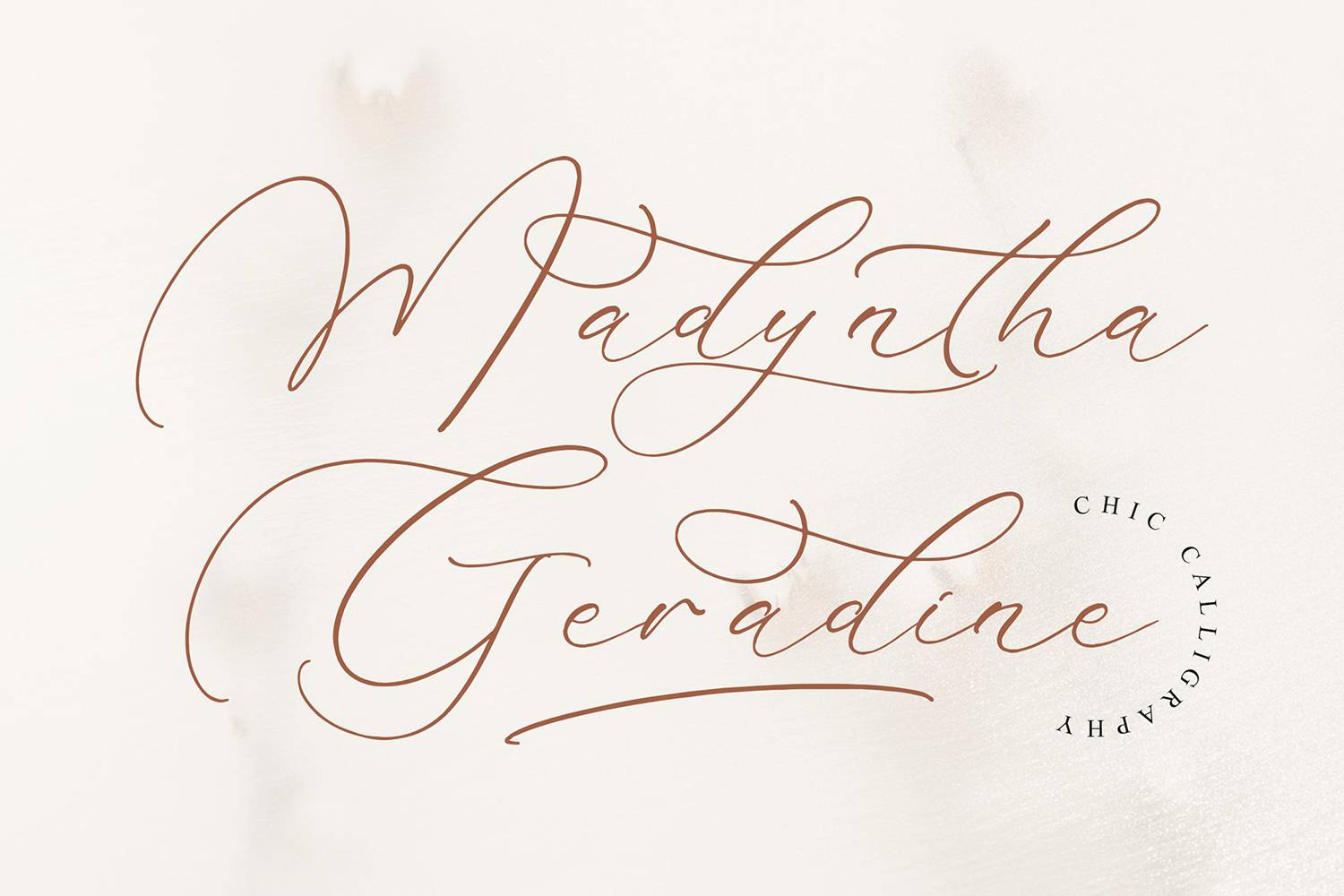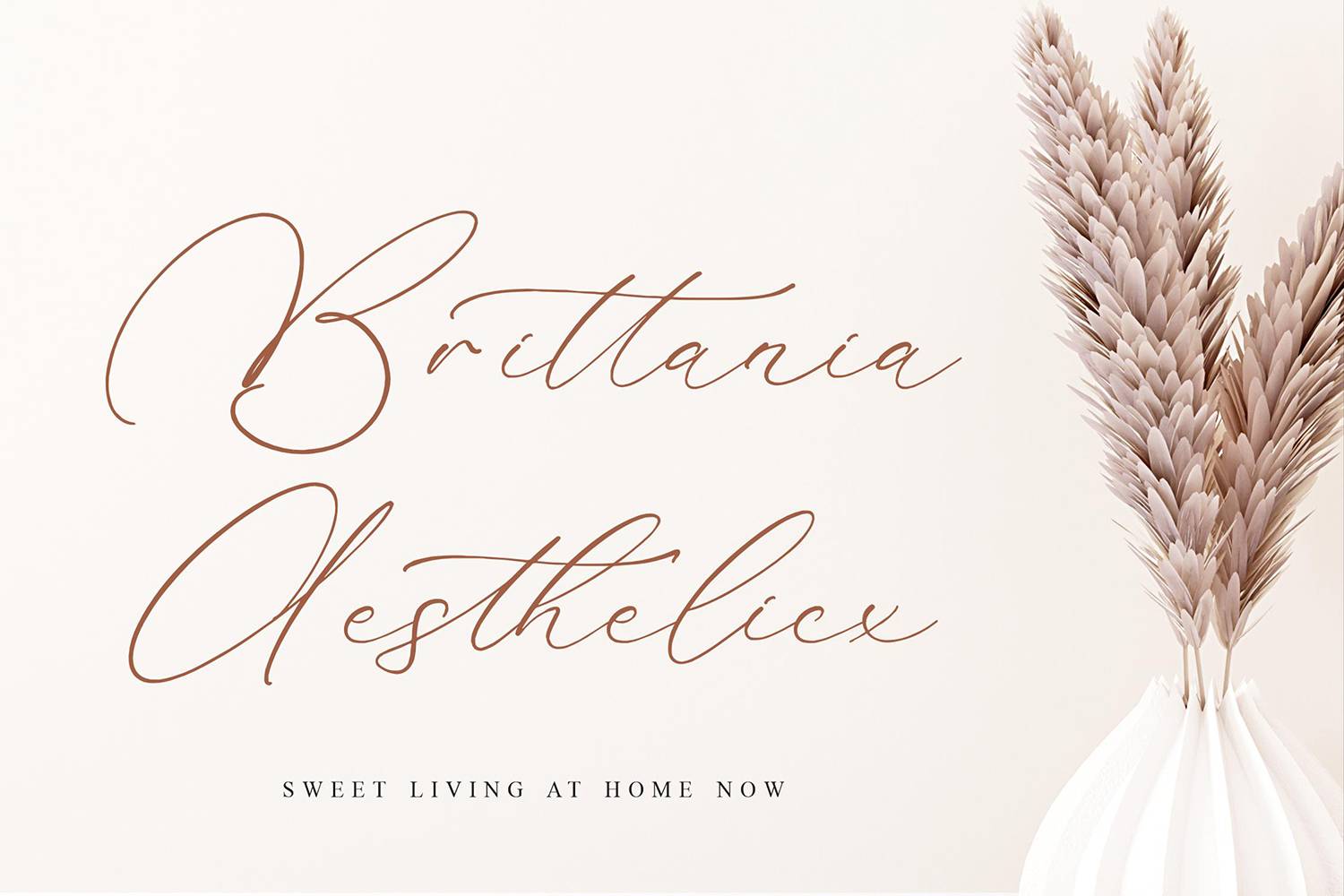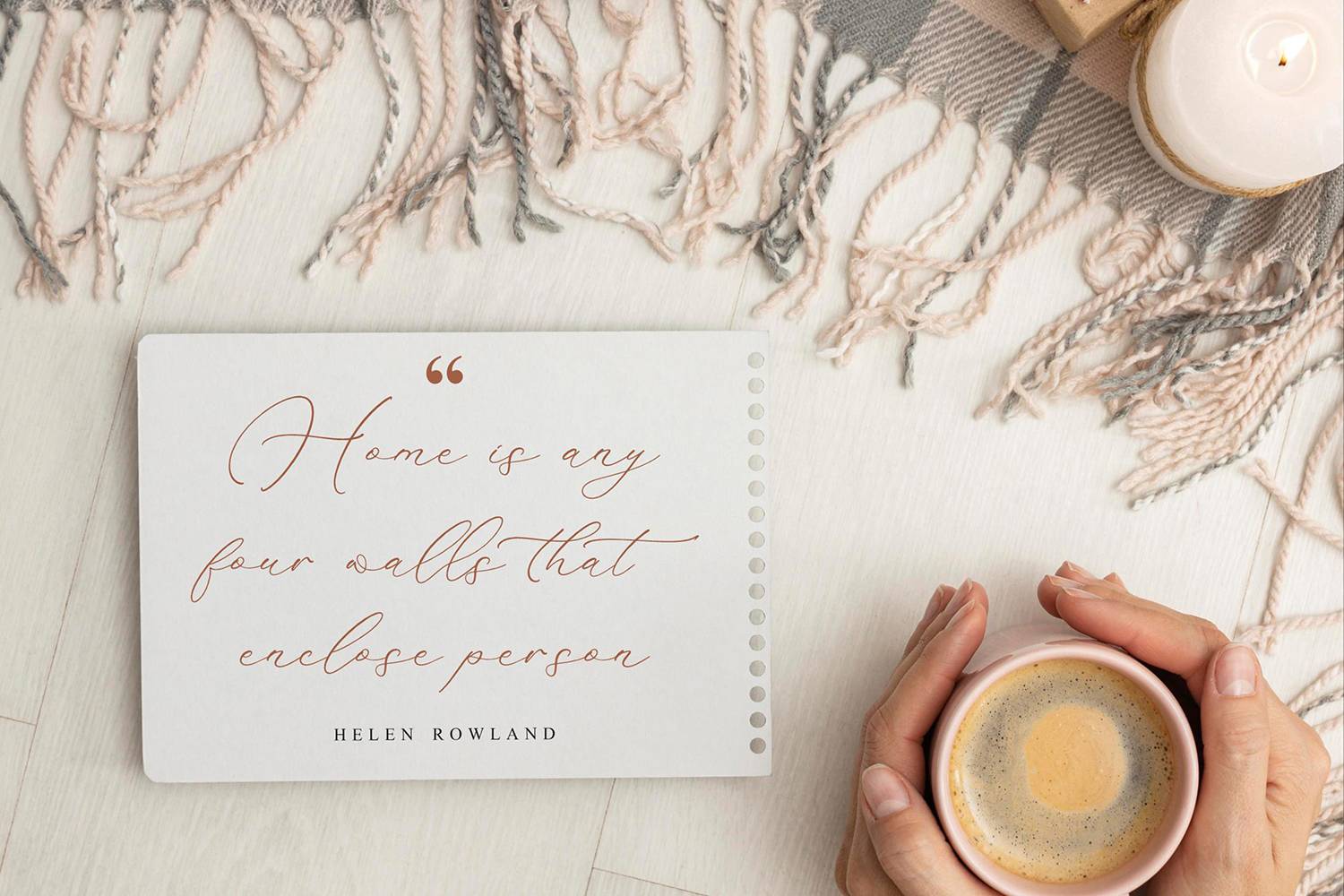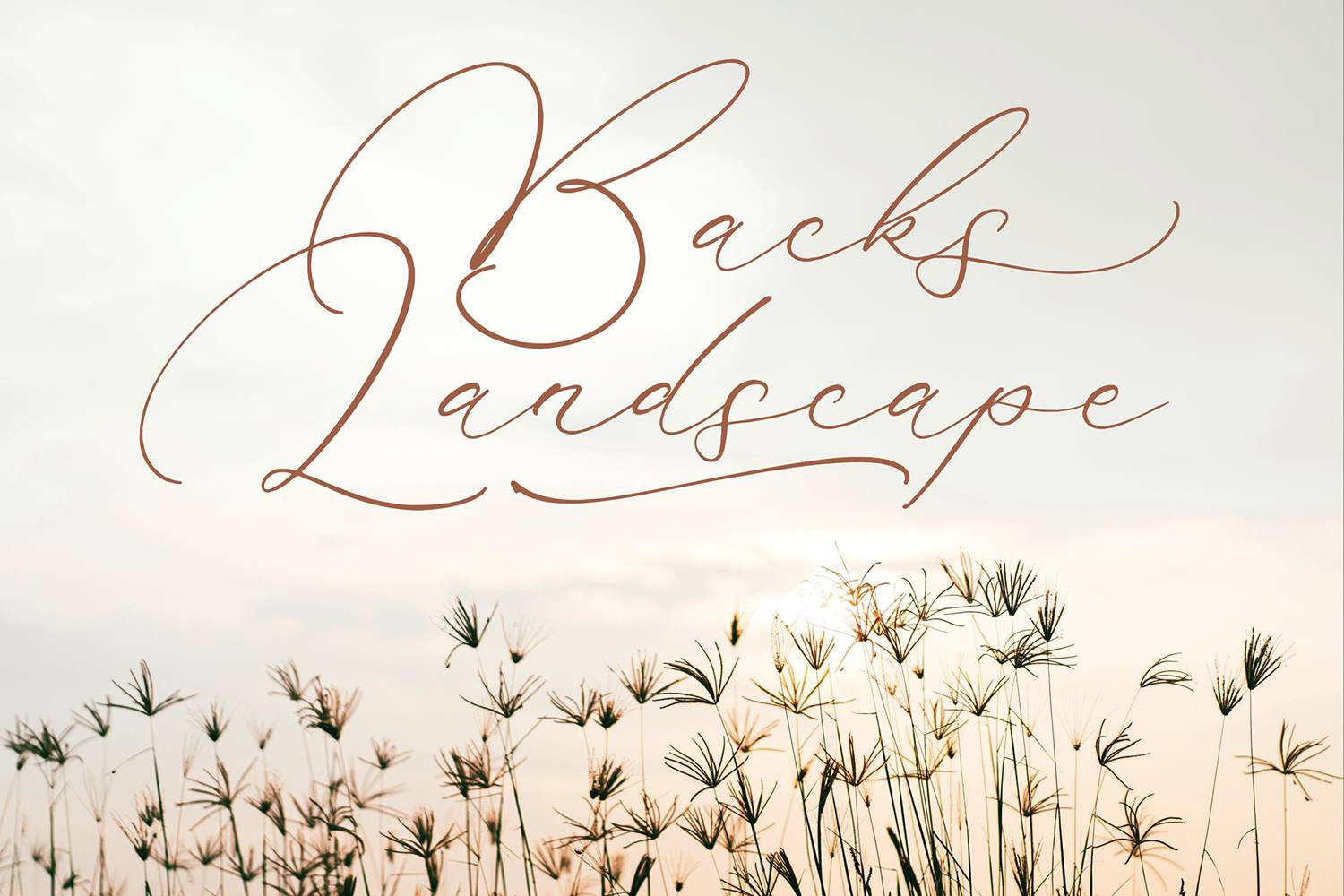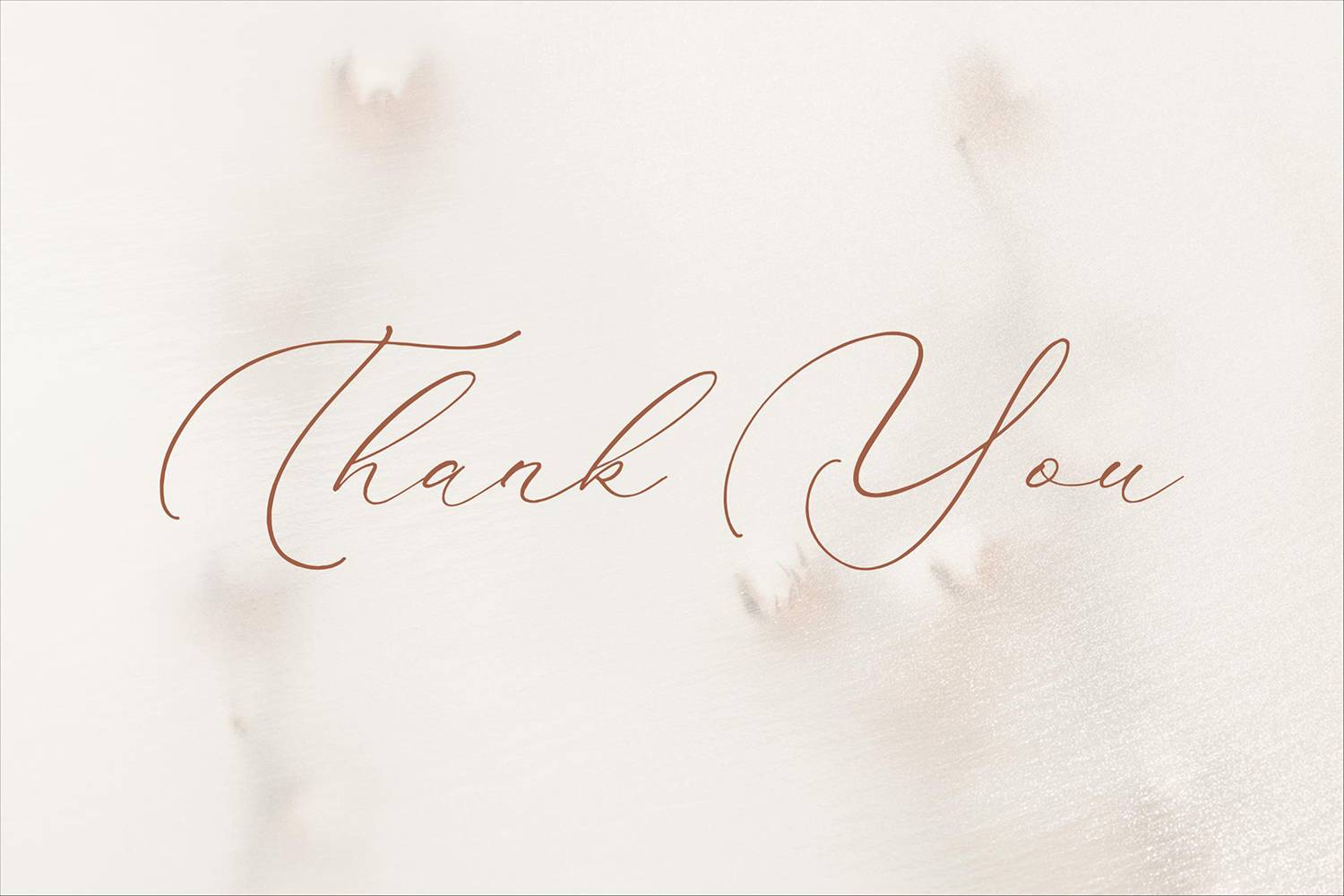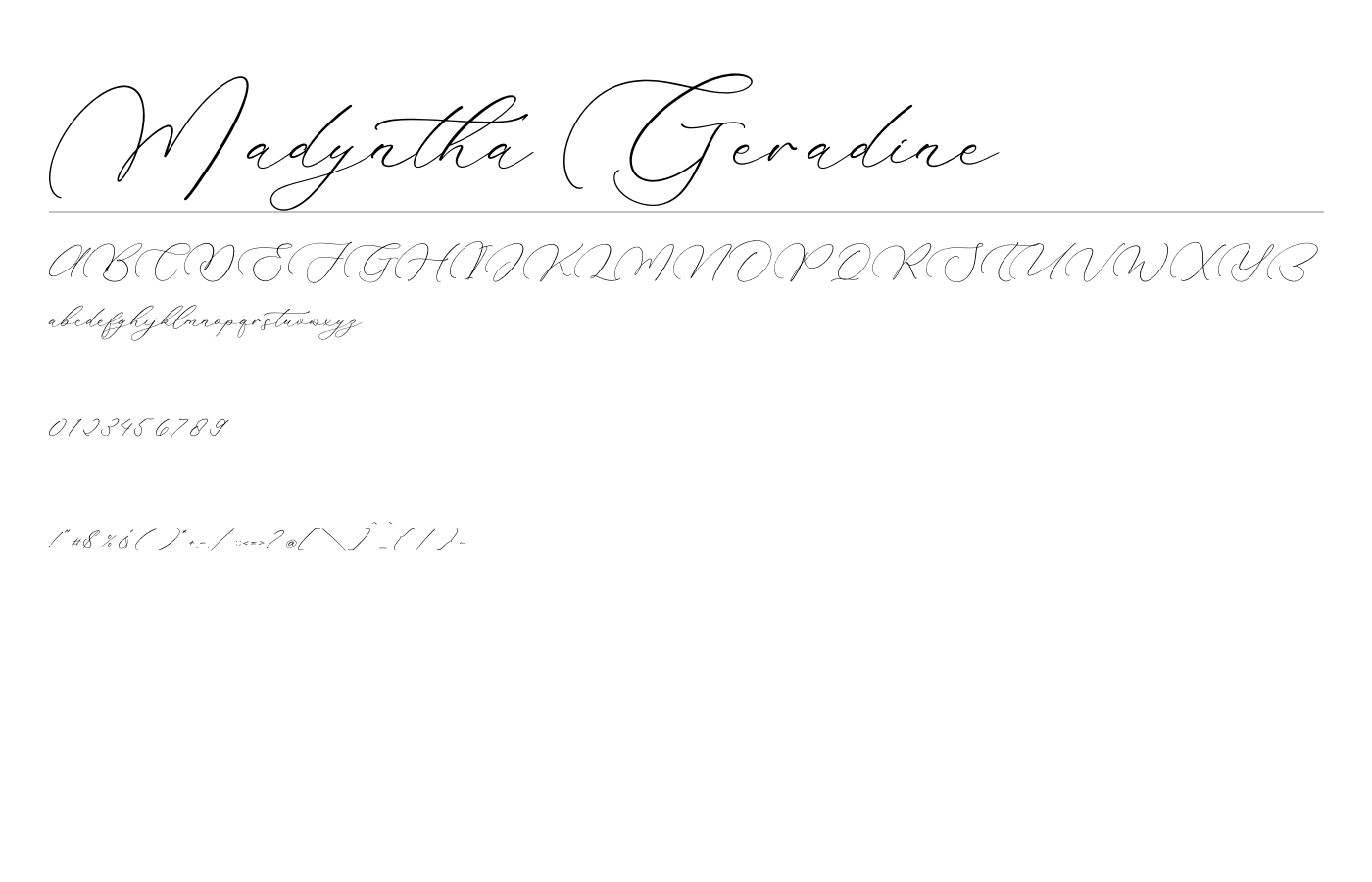
Madyntha Geradine is a delicate, elegant script font with slender, flowing lines that mimic natural handwriting. Its light weight and graceful strokes give it a refined, sophisticated feel, making it ideal for luxurious branding, wedding invitations, or stylish logos that seek a personal yet polished touch. This font shines best in large display uses where its intricate letterforms can be fully appreciated.
Madyntha Geradine Font
About Madyntha Geradine Font